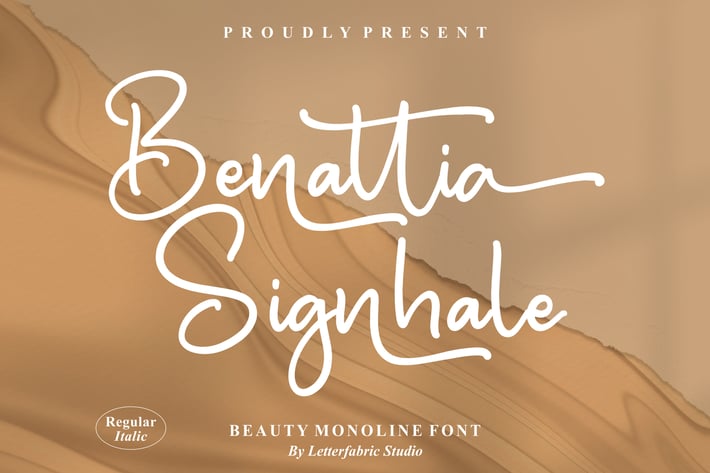
Benattia Signhale Monoline Font
Benattia Signhale is a beautiful and timeless handwritten typeface crafted with smooth monoline strokes, giving it a clean yet expressive personality. This font blends elegance with a touch of modern simplicity, making it versatile for various creative needs. Whether for digital or print, Benattia Signhale enhances your work with sophistication and effortless style.
+ Monoline handwritten style with natural flow
+ Regular & Italic versions included
+ Multilingual support
+ Versatile and timeless design
+ Works for both digital & print projects
+ Branding and logo design
+ Social media graphics
+ Invitations & greeting cards
+ Fashion & lifestyle projects
Bring elegance and modern simplicity together with Benattia Signhale — your go-to monoline handwritten font!